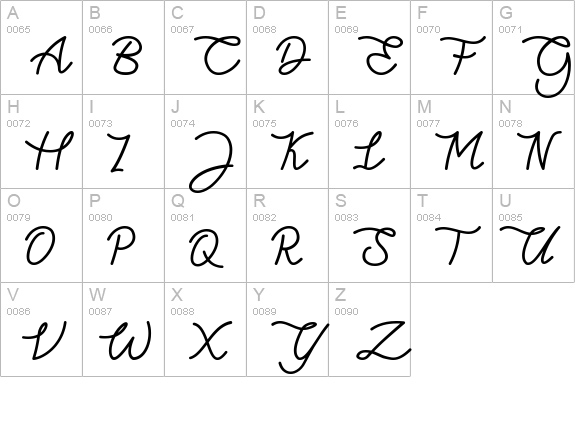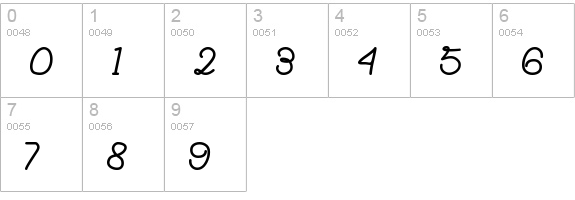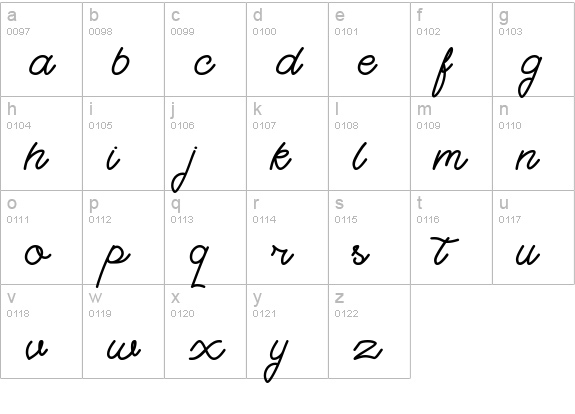
Highday Script font is a stunning and elegant typeface that exudes sophistication and charm. With its smooth lines and graceful curves, this font is perfect for adding a touch of luxury to your designs. Whether you are creating wedding invitations, branding materials, or social media graphics, Highday Script font will elevate your project to the next level.